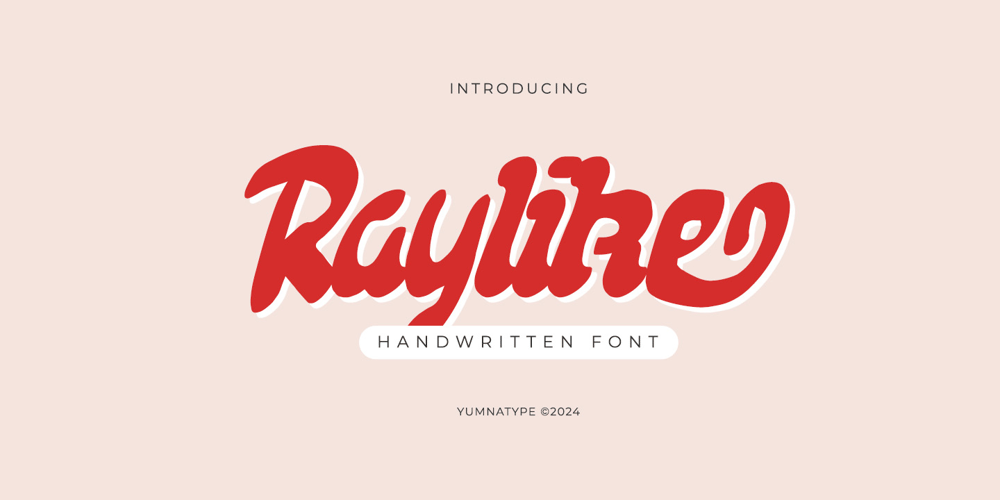
Raylike Font Family was designed by Donis Miftahudin and published by Yumna Type. Raylike contains 1 styles and family package options. Raylike is a lively and playful handwritten font that infuses your designs with a sense of spontaneity and joy. At its core, Raylike is crafted with a playful hand-drawn style that captures the essence of youthful energy and creativity. Each character is imbued with personality, showing expressive strokes and whimsical details that add a sense of liveliness to your text. One of the defining characteristics of Raylike is its consistent proportions, ensuring that each letter maintains a harmonious balance with the others. This uniformity enhances readability and ensures that the text flows smoothly across the page. Combined with the low contrast between strokes, Raylike offers excellent legibility, making it easy to read even in longer passages of text. In addition, enjoy the features here.Features: Ligatures Stylistic Sets Multilingual Supports PUA Encoded Numerals and Punctuations Raylike fits in headlines, logos, posters, flyers, branding materials, greeting cards, print media, editorial layouts, and many more designs. Find out more ways to use this font by taking a look at the font preview.Thanks for purchasing our fonts. Hopefully, you have a great time using our font. Feel free to contact us anytime for further information or when you have trouble with the font. Thanks a lot and happy designing.